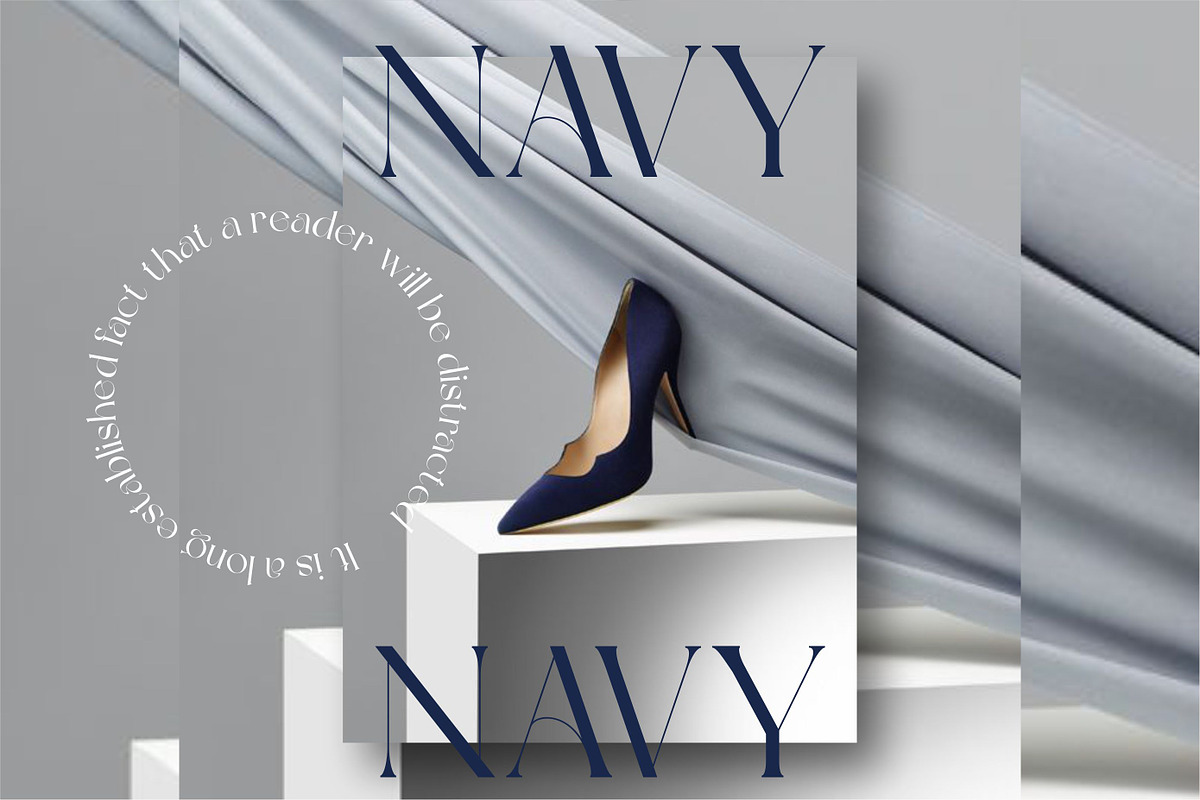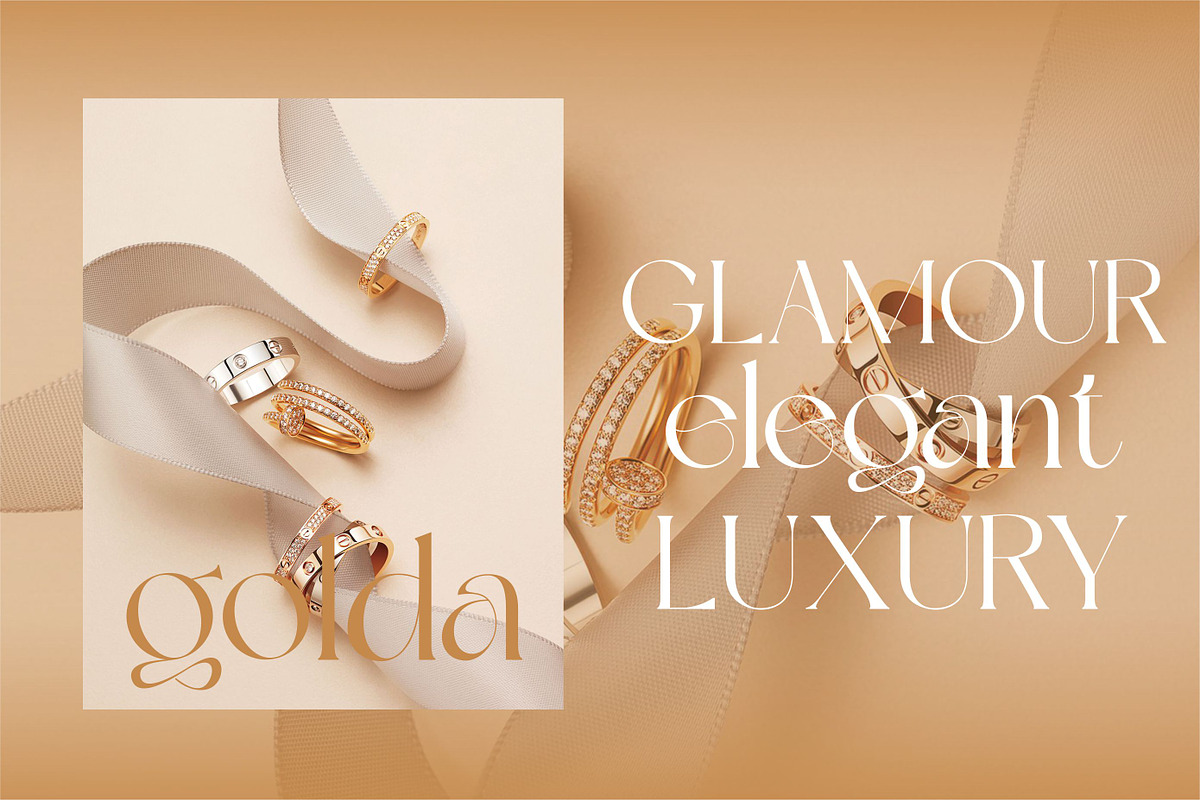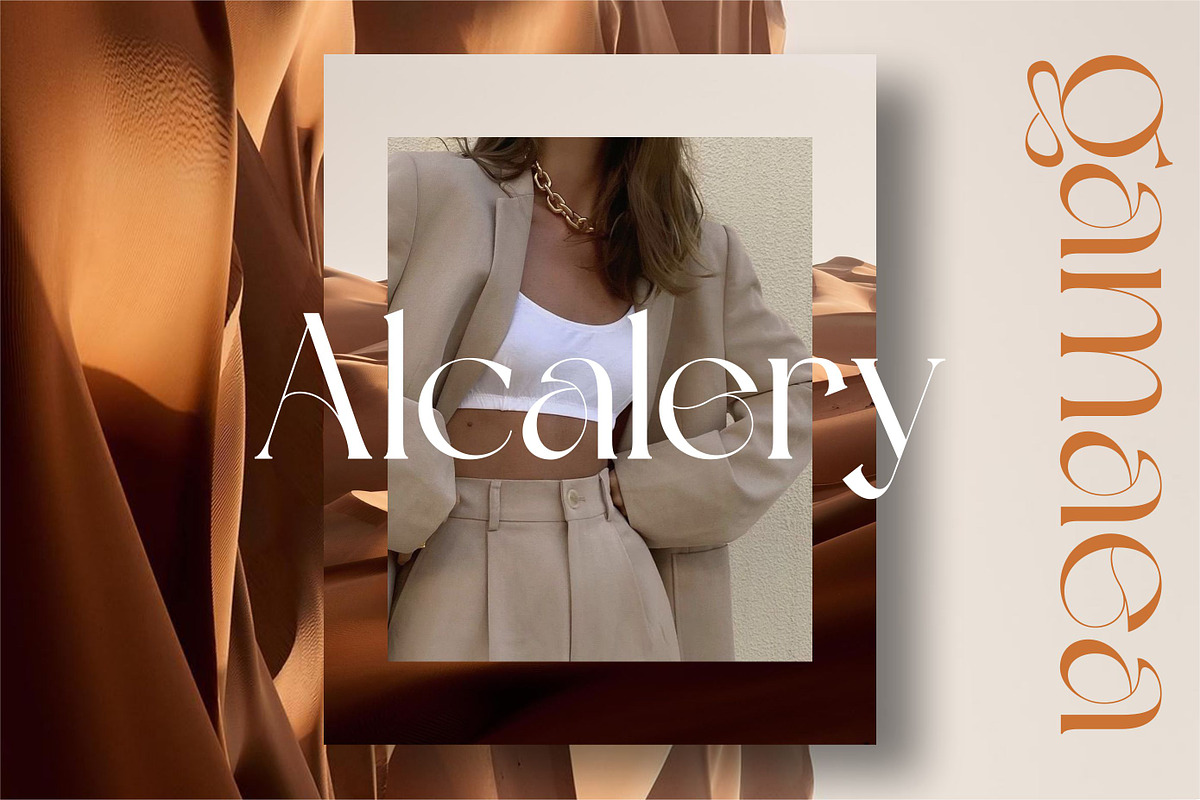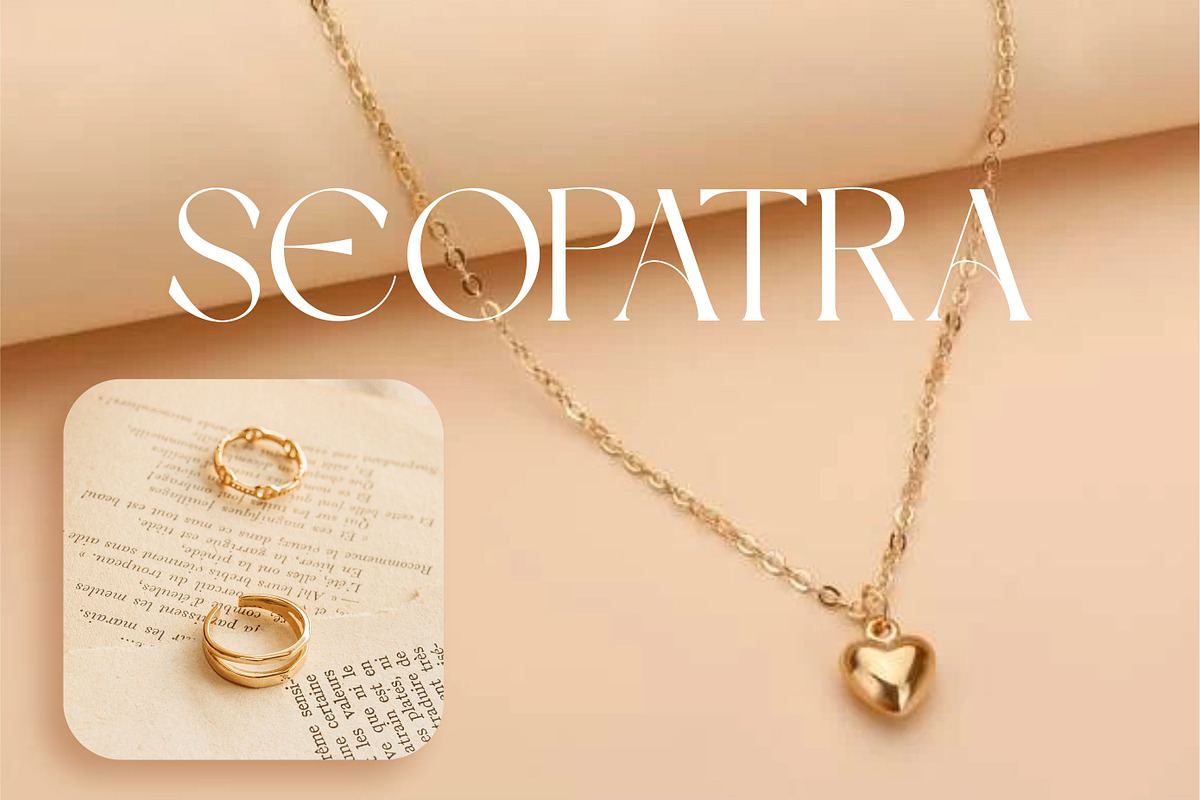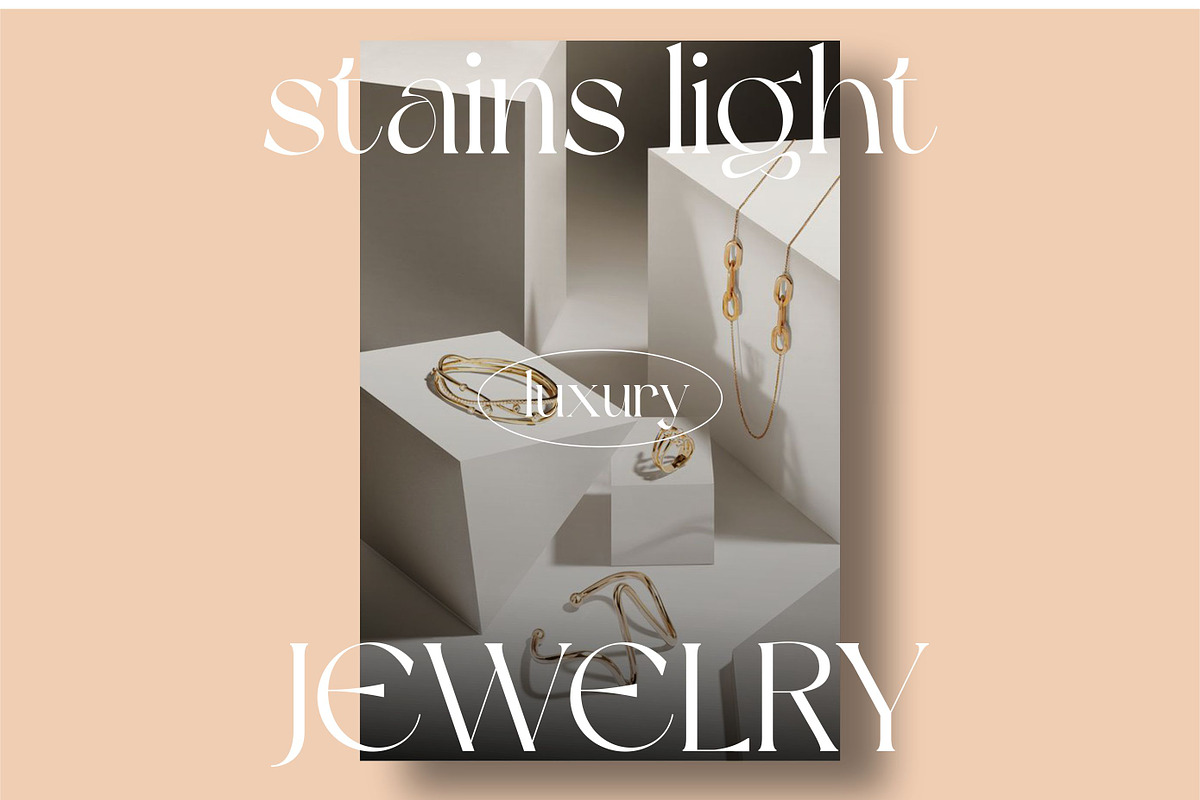
Dream Avenue is a serif font with modern classic style. Created for poster, web design, branding, illustrations, badges and some other works. The fonts includes uppercase letters, lowercase letters, numerals, a large range of punctuation.
Dream Avenue Font is a modern classic serif typeface designed to combine timeless elegance with a clean, contemporary feel. With balanced letterforms and refined details, this font delivers a professional yet stylish look that works across a wide range of creative projects.
Dream Avenue is well suited for designers who want a serif font that feels classic without being outdated, making it a reliable choice for both print and digital use.